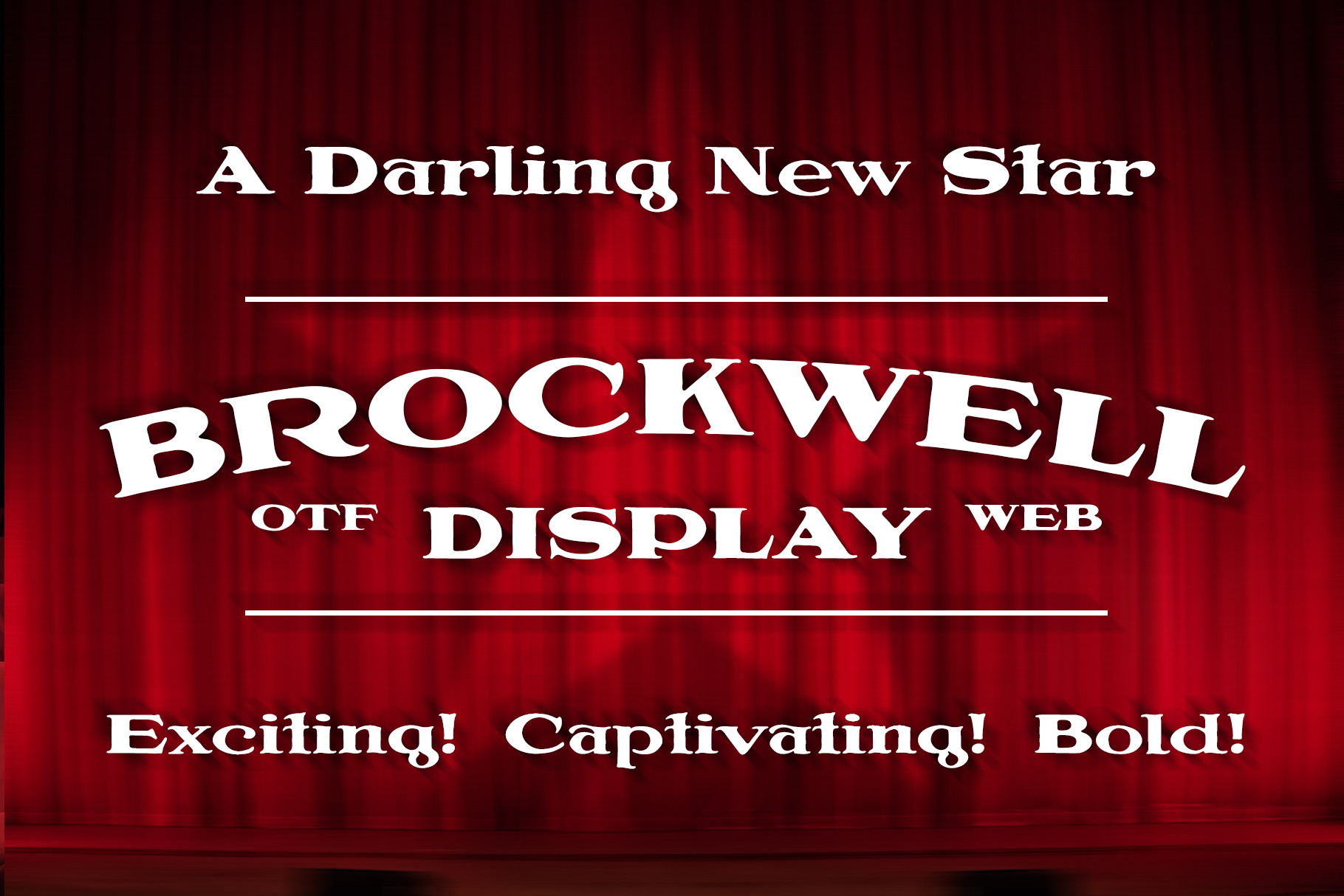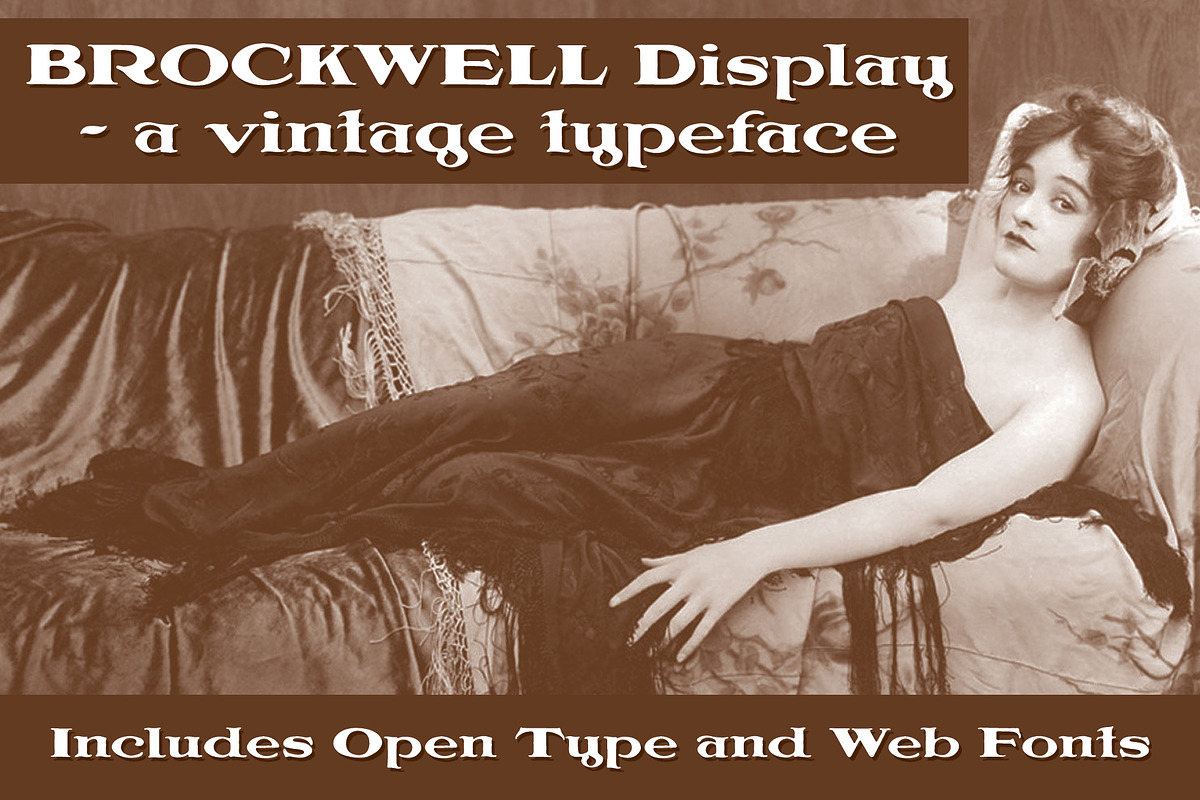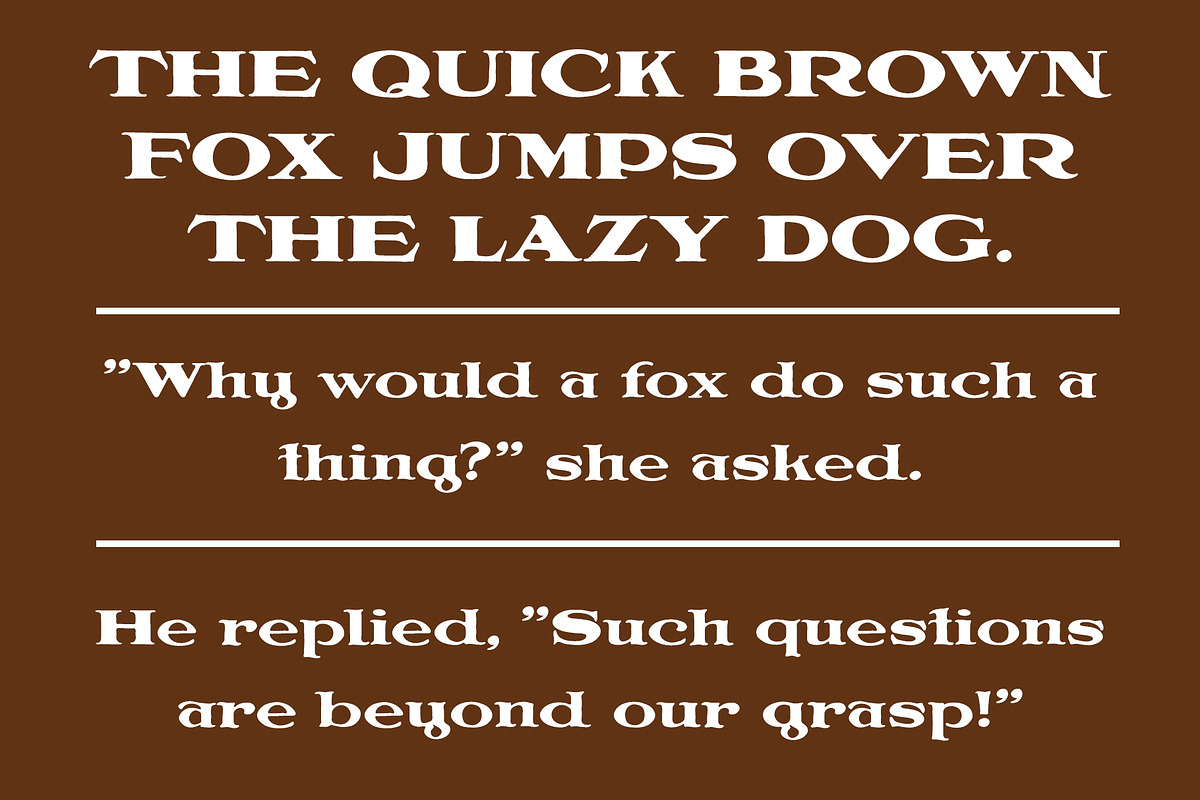
A wonderful vintage display typeface, named after American silent film star Gladys Brockwell, who died tragically in 1929. Basic uppercase, lowercase and punctuation are included. Heavy and easy to read! Great for use in any project that needs some vintage, retro, or antique 1910's-1930's style. OTF and WOFF versions are included. Just purchase the license that fits your needs.